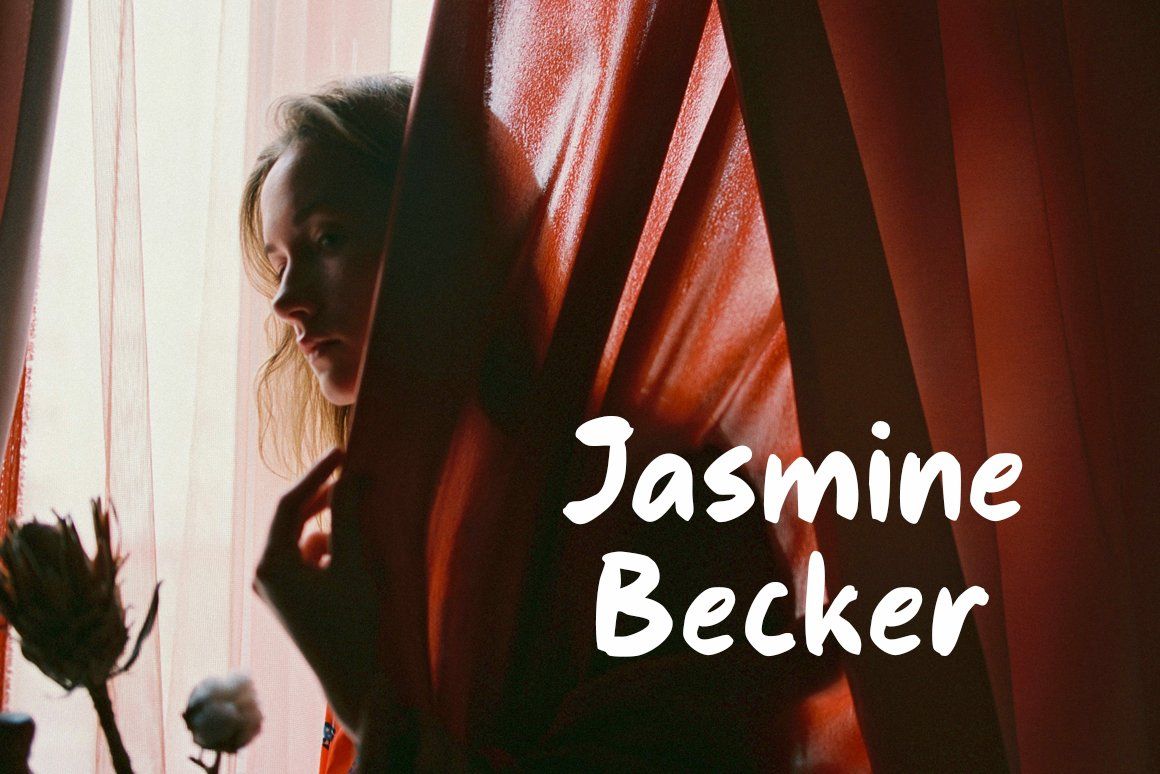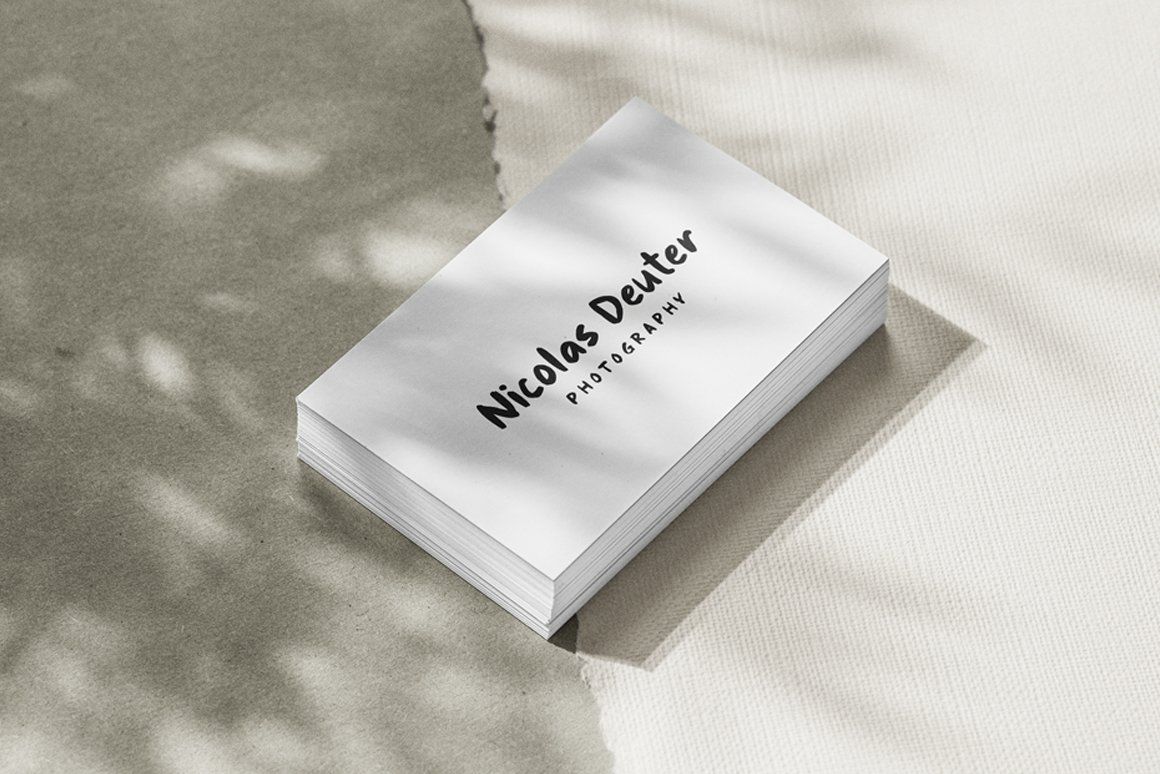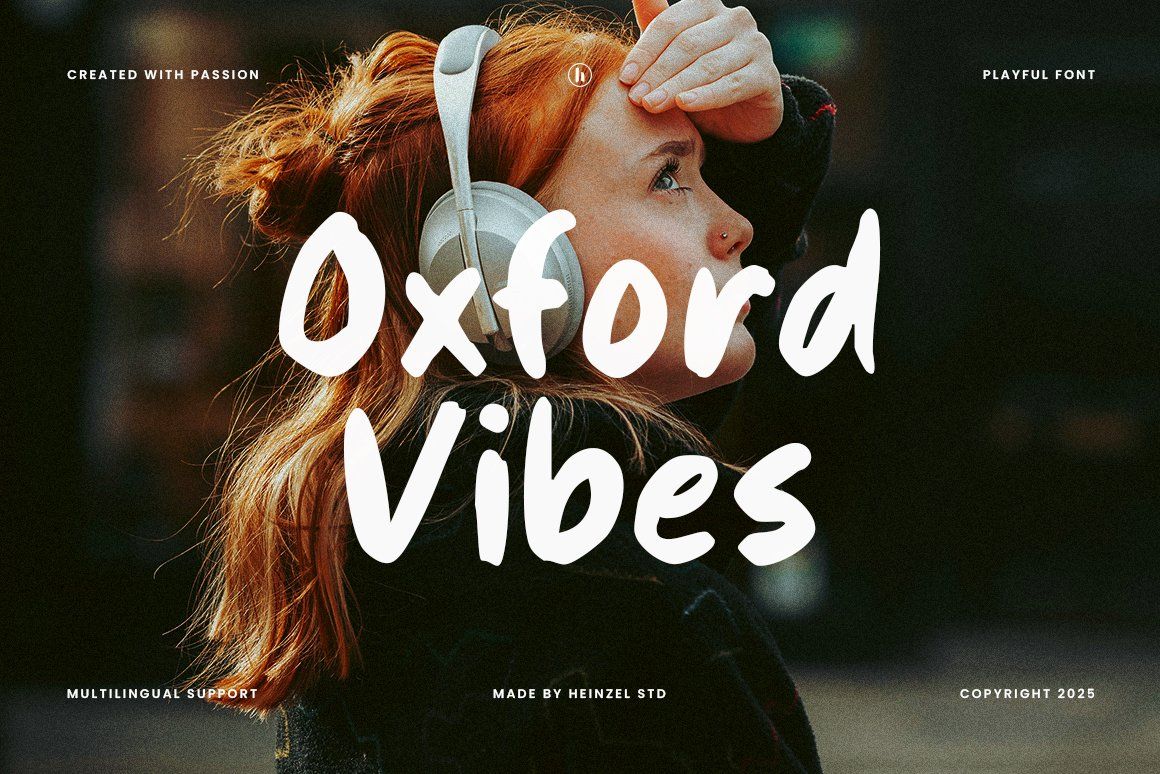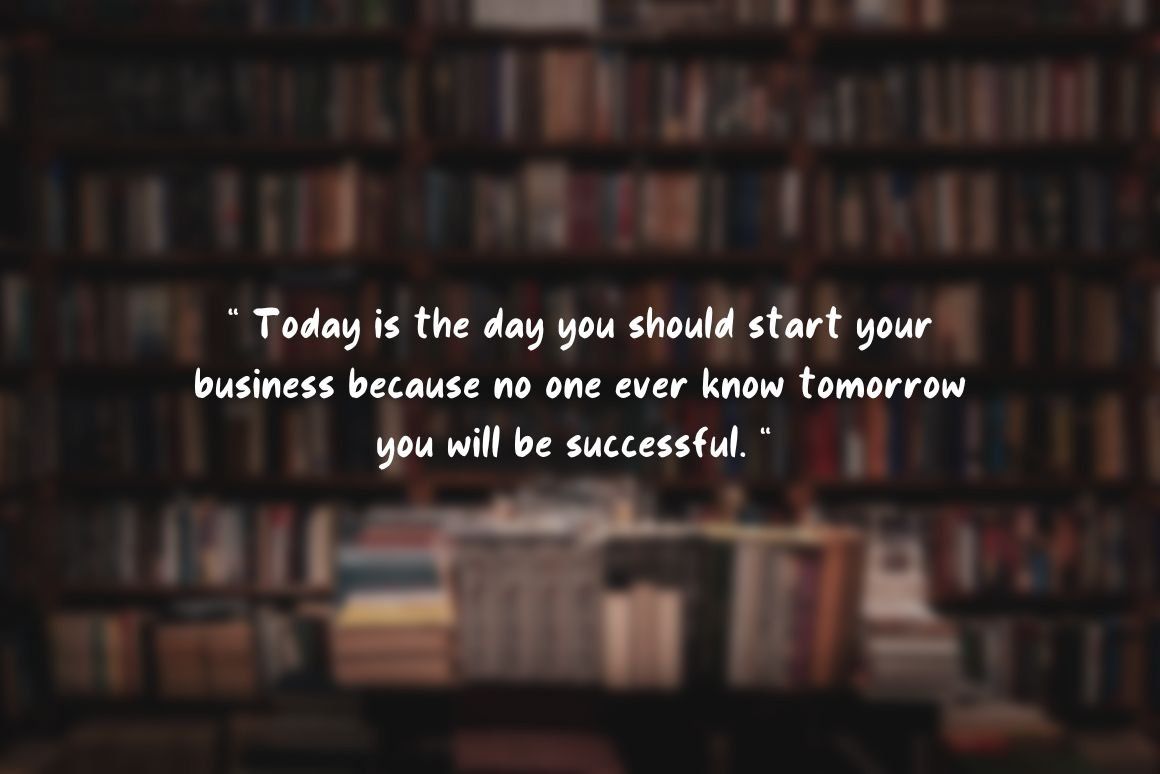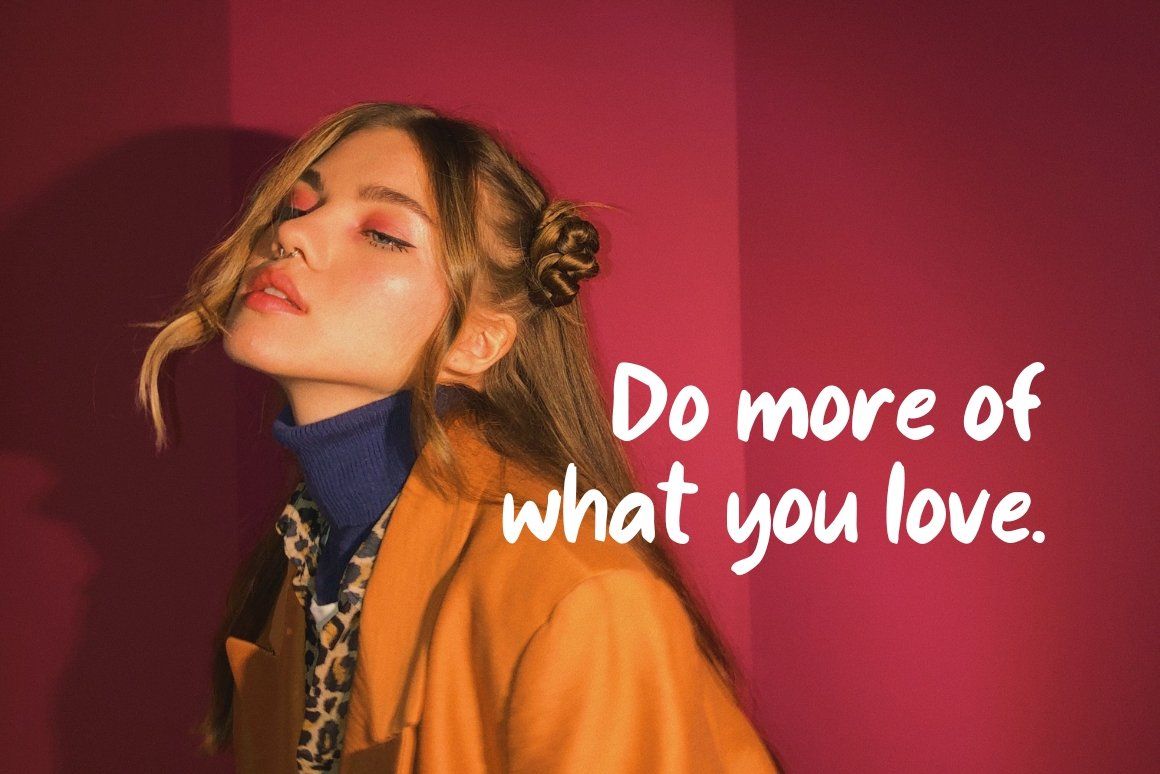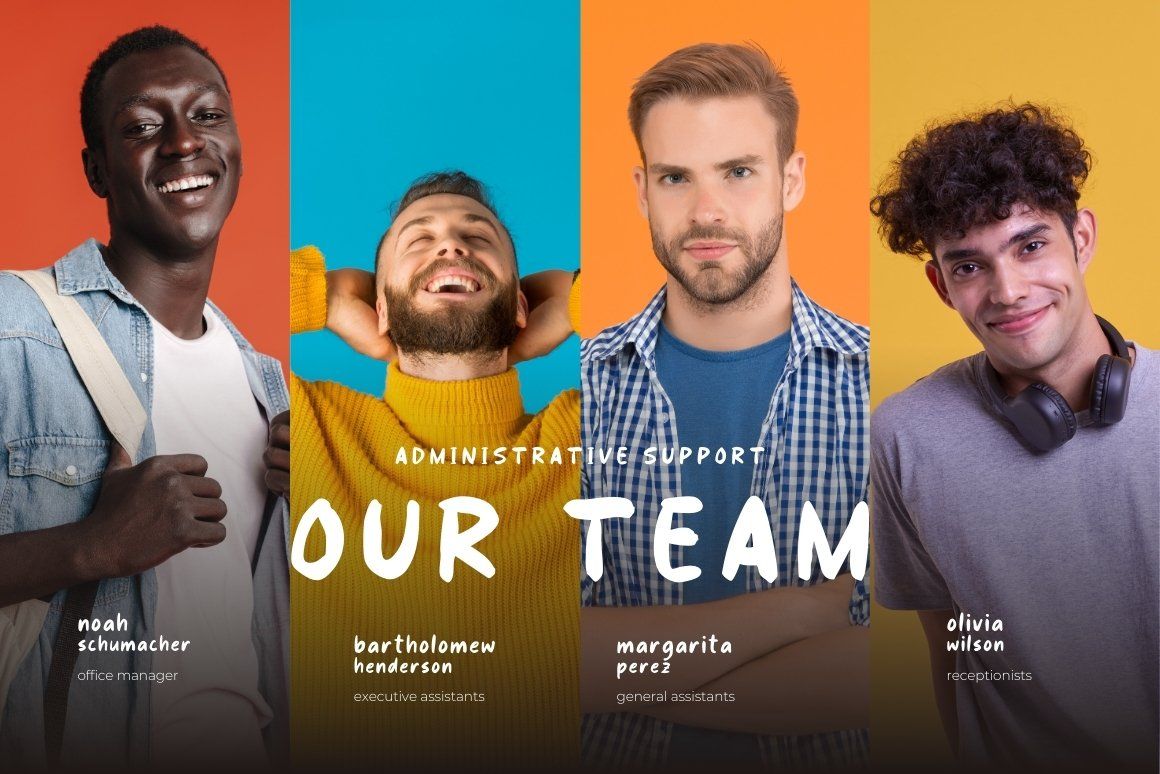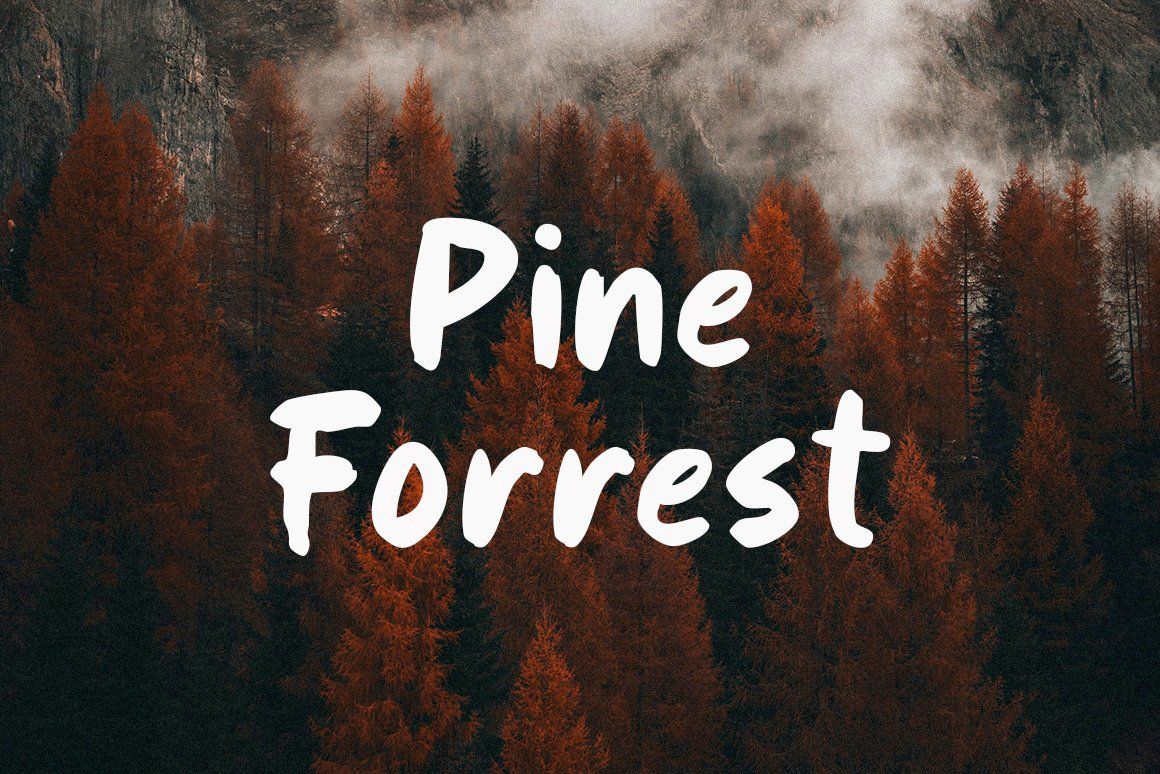
Oxford Vibes – Playful Handwritten Font
Oxford Vibes is a playful handwritten font that brings fun, warmth, and personality into every design. Crafted with smooth brush strokes and a natural hand-drawn feel, this font is perfect for branding, social media posts, packaging, children’s products, posters, quotes, invitations, and creative projects that need a cheerful and authentic touch.
With its bold handwritten style and casual flow, Oxford Vibes creates eye-catching typography that feels modern, energetic, and approachable. The font is designed to stand out beautifully on both digital and print designs while keeping a friendly and artistic appearance. Whether you are creating trendy branding, playful merchandise, YouTube thumbnails, café menus, or lifestyle content, Oxford Vibes adds instant charm and creativity.
Oxford Vibes also includes multilingual support, making it versatile for international design projects. Its smooth curves and expressive lettering help create a handmade aesthetic that feels stylish yet effortless.